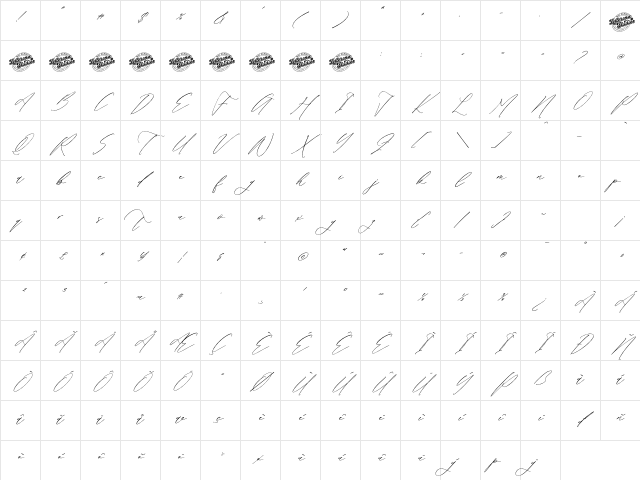
Complete Victoria Cordeline DEMO VERSION Italic glyph index. Displaying only characters natively supported by Victoria Cordeline DEMO VERSION Italic font.
Victoria Cordeline DEMO VERSION is a composed and adaptable typeface that performs quietly and consistently across a wide range of design contexts. The slanted form adds forward momentum and visual energy.
Pro Tip: Use Victoria Cordeline DEMO VERSION for emphasis, pull quotes, and subheadings where its slanted energy can add rhythm to the layout.